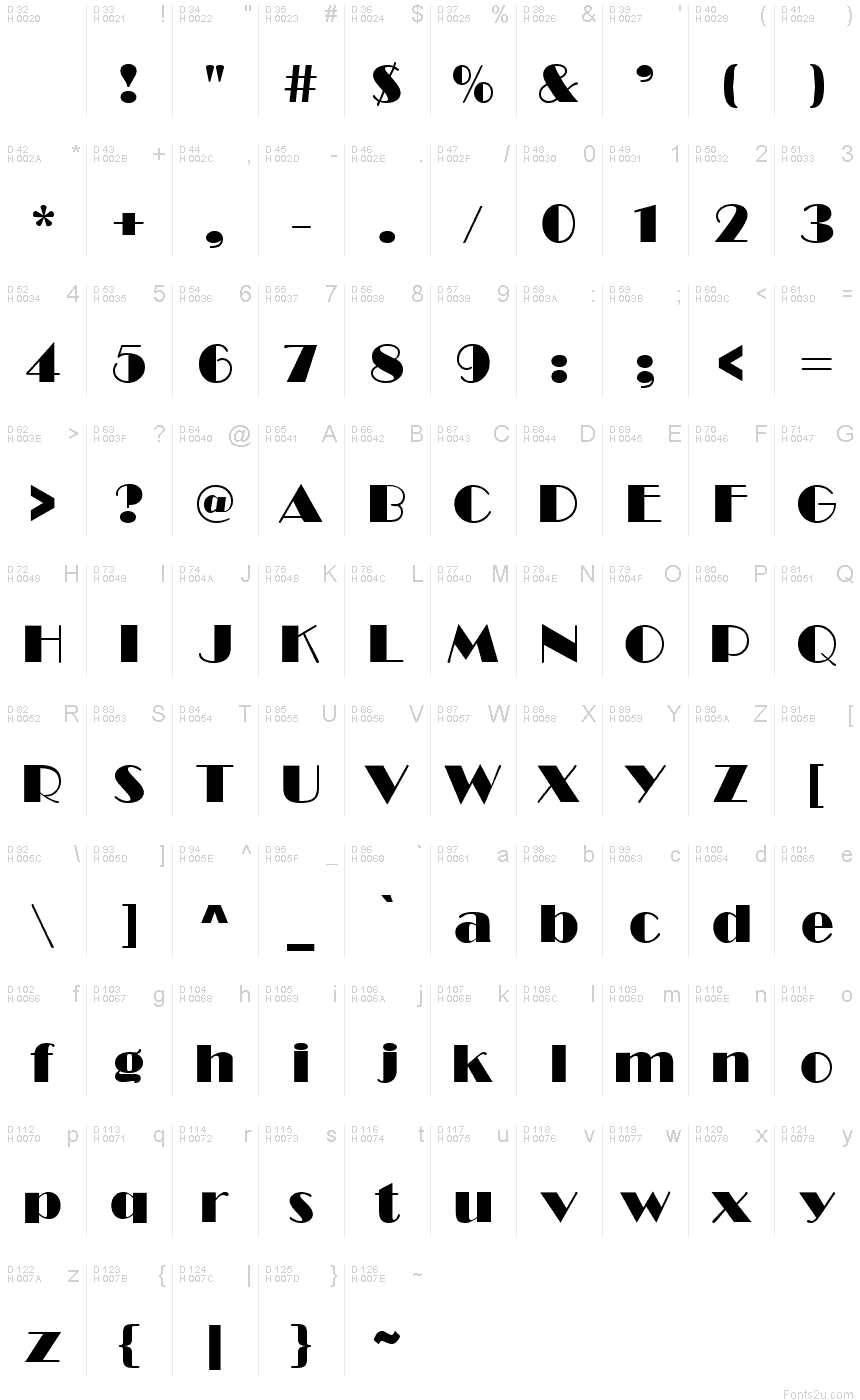
Broad Avenue
Broad Avenue is a free experimental high-contrast display font built from severe shifts between fine hairline curves and dense, nearly solid geometric strokes. Its broad forms feel architectural and sharply contemporary.
Editorial design is a natural setting for these dramatic changes in scale, especially across magazine covers and fashion features. The same sculptural lettering can turn music posters and cultural event graphics into bold typographic images with an art-school edge. For boutique branding, the alternating light and dark shapes can become a highly recognizable product mark rather than ordinary labeling.